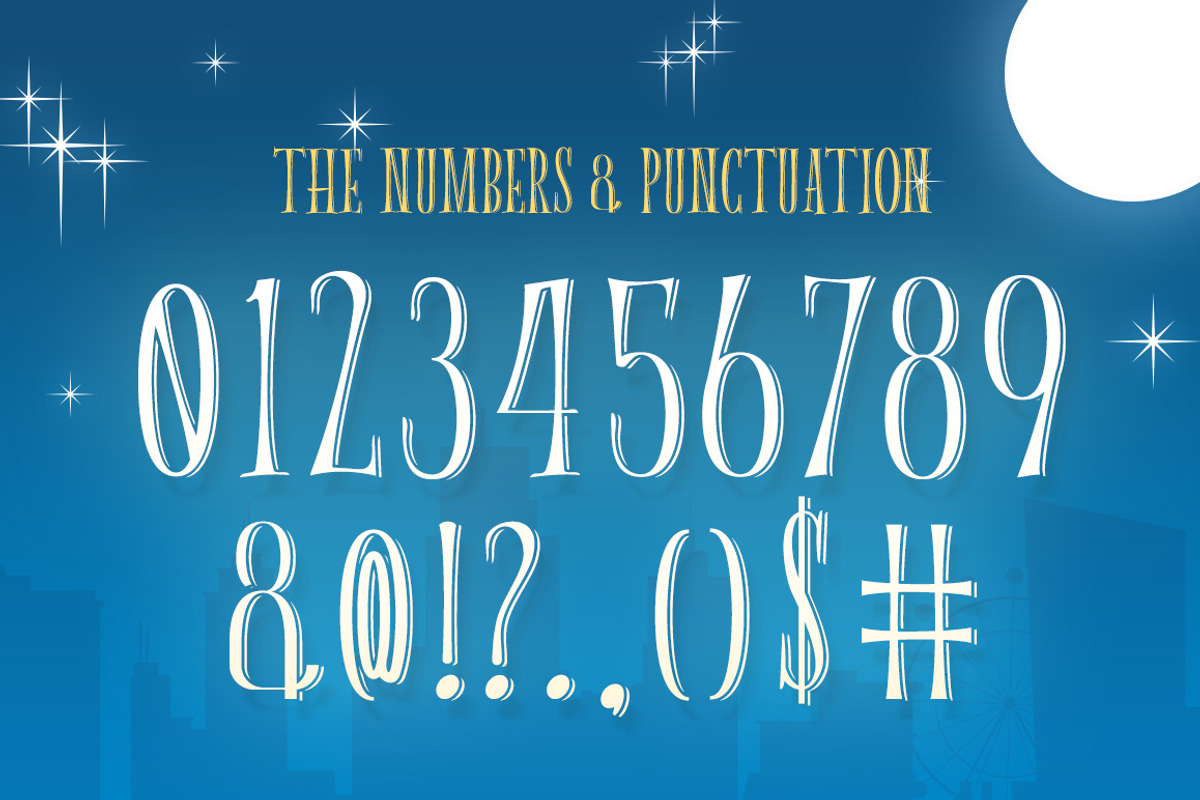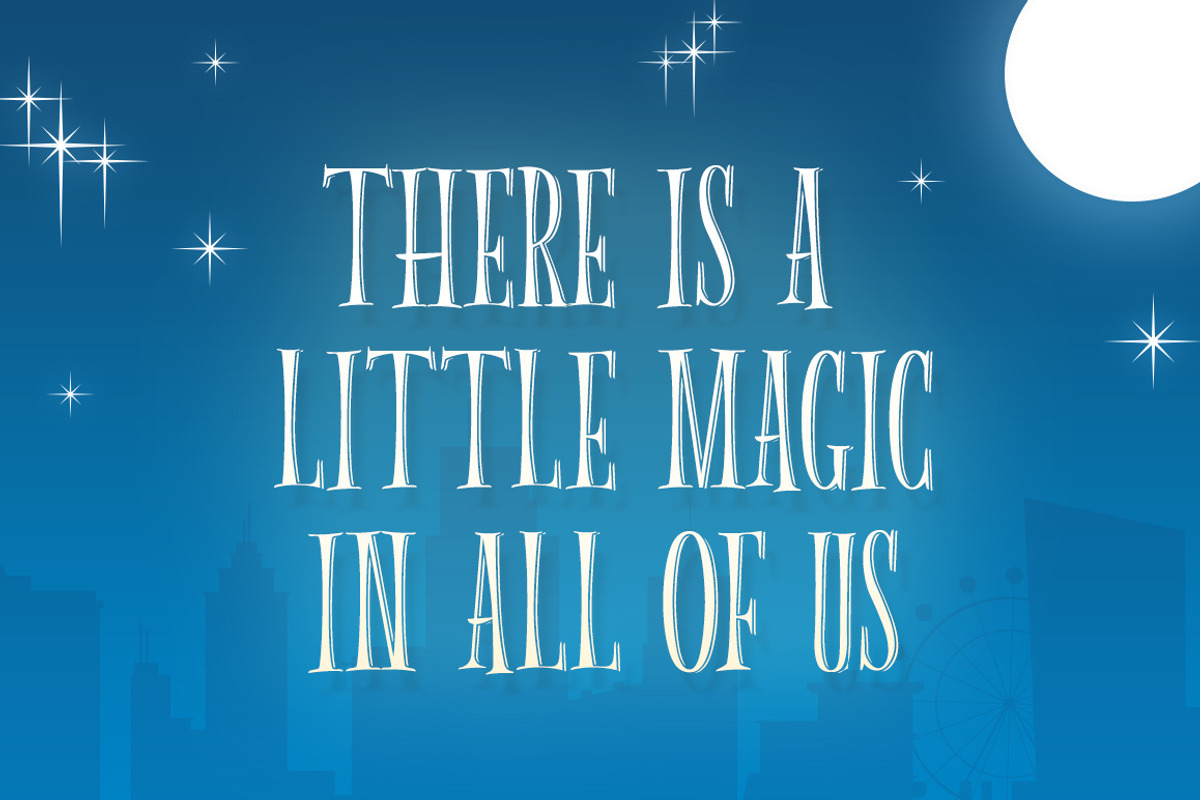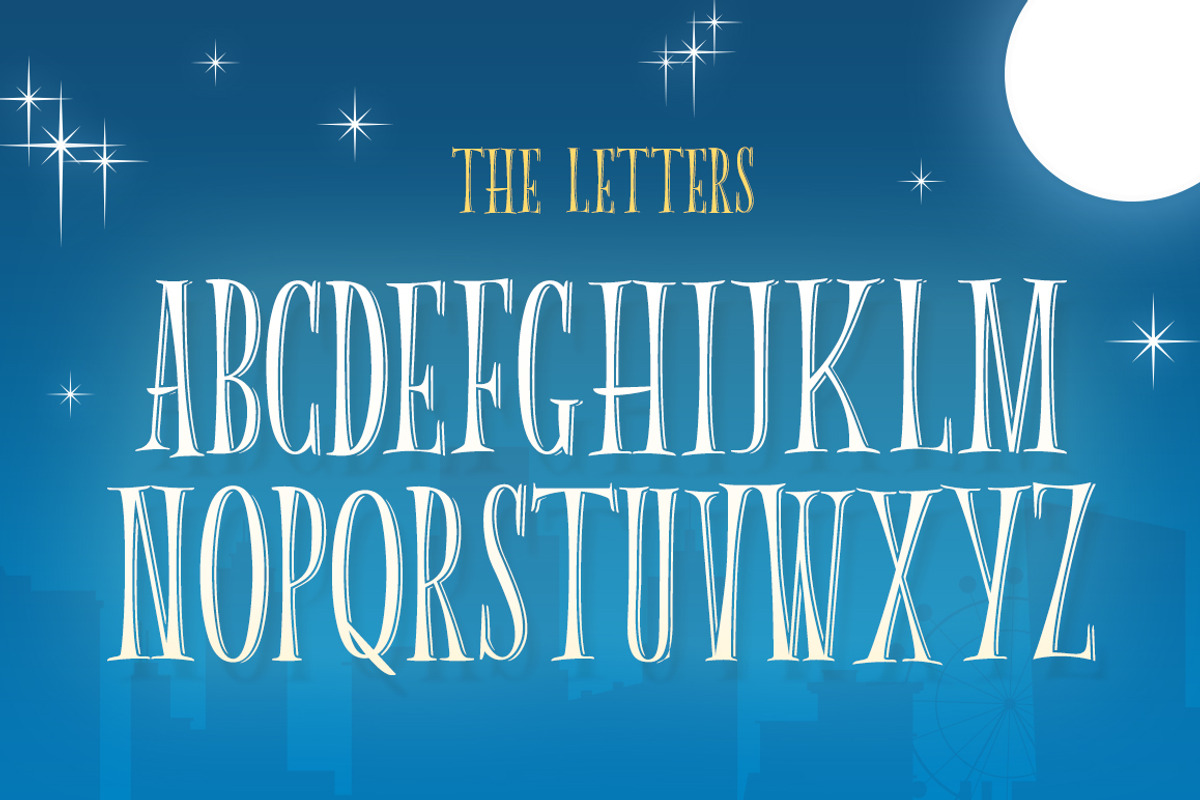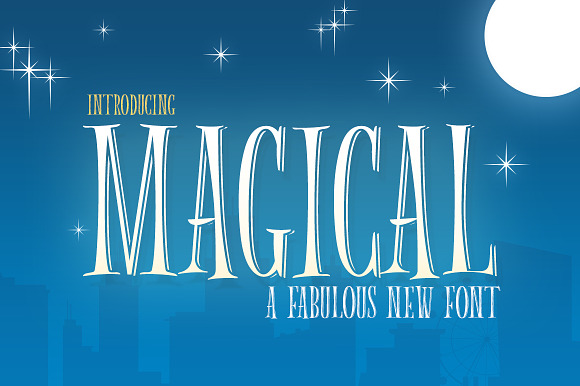
Magical Font
Magical is a sparkling new font that has a little touch of that unknown sass to it that some call Magic and some call flair. It’s tall and original and suits so many design situations.
Why Magical Font is worth a look
Magical Font by Salt & Pepper Designs fits naturally into Branding, posters, packaging, typography.